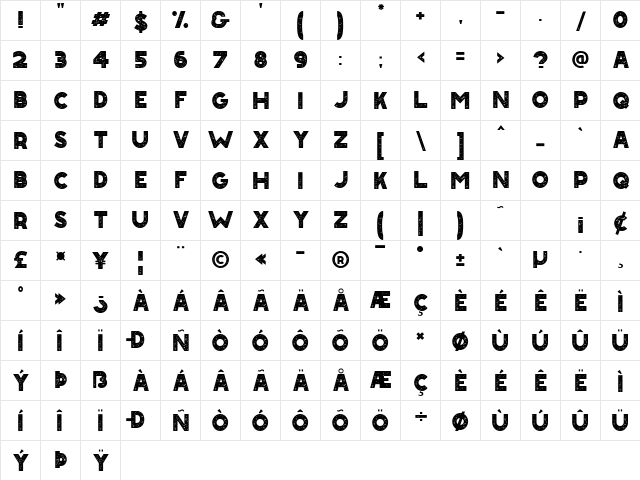
Road Summer Regular
| Foundry | Display Studio |
| Designer | Display Studio |
Design Context for Road Summer Typeface
Road Summer is a composed and adaptable typeface that performs quietly and consistently across a wide range of design contexts.